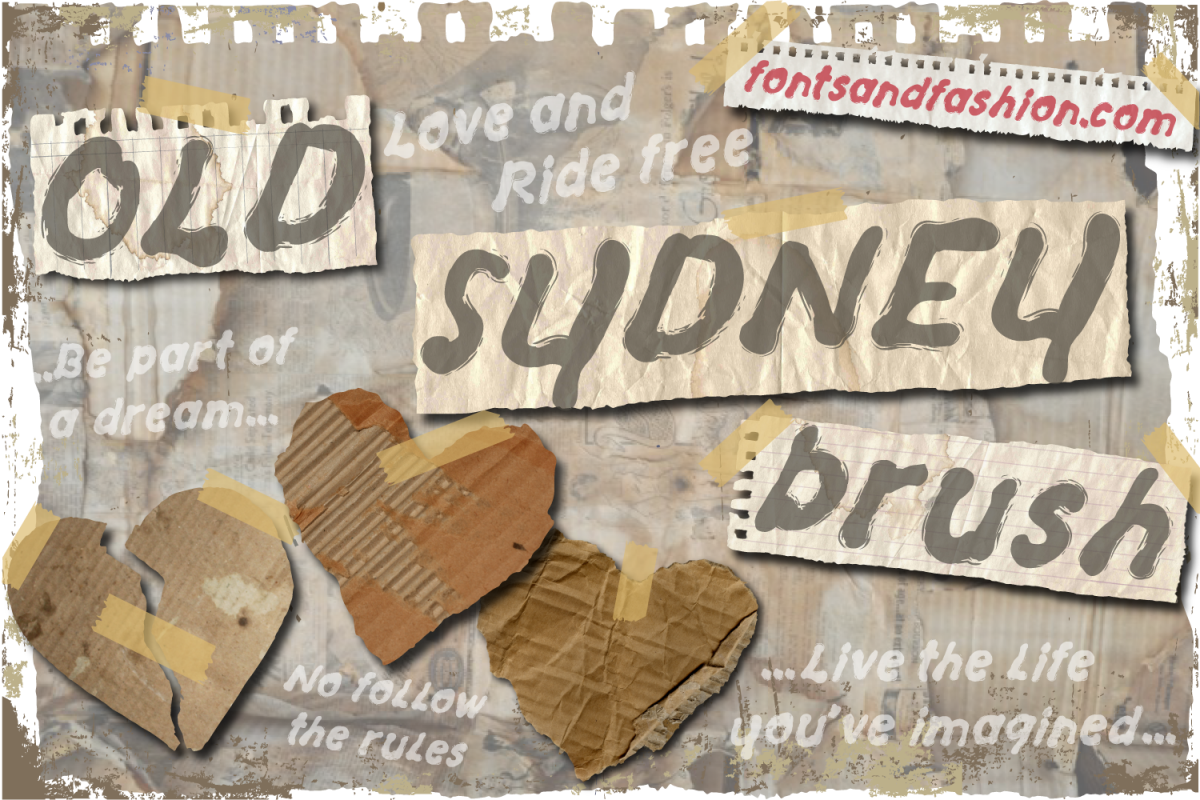
Old Sydney_Brush
“OLD SYDNEY_brush” is the first “change-artis”t of the family.
The basic shape becomes rounder, more chubbier and the profile gets dirty with a light brush stroke…This makes “OLD SYDNEY brush” almost look like a little uncombed brat.....it's playful,cocky, footloose, and for these reasons it is strongly recommended for comics or particularly suited for magazine headings, advertising, menus or packaging....